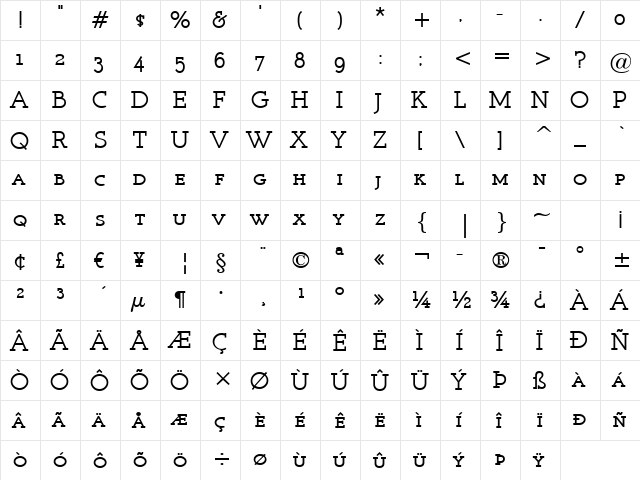
Register Serif BTN SC Bold
Design Context for Register Serif BTN SC Typeface
Register Serif BTN SC brings classic typographic sensibility to the table — its serifs and measured letterforms reflect centuries of print heritage. The heavy weight commands attention and anchors typographic hierarchies.